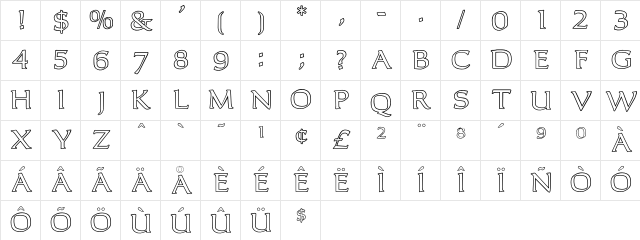
OPTICantorRoman-Outline Regular
Design Context for OPTICantorRoman-Outline
OPTICantorRoman-Outline is built around its visual character rather than neutral utility - its distinctive forms are designed to make an impression at display sizes.
Font Pairing: Pair with a clean neutral sans-serif for body copy to let OPTICantorRoman-Outline's character lead without overwhelming the composition.
Pro Tip: Use OPTICantorRoman-Outline exclusively at display sizes - it was designed to be seen, not read at length. Let a neutral companion handle body copy.